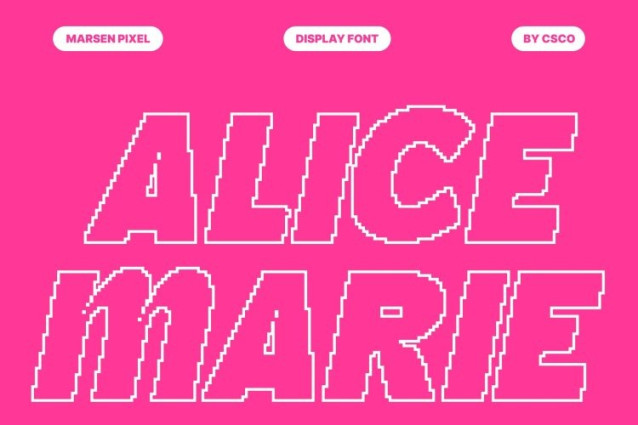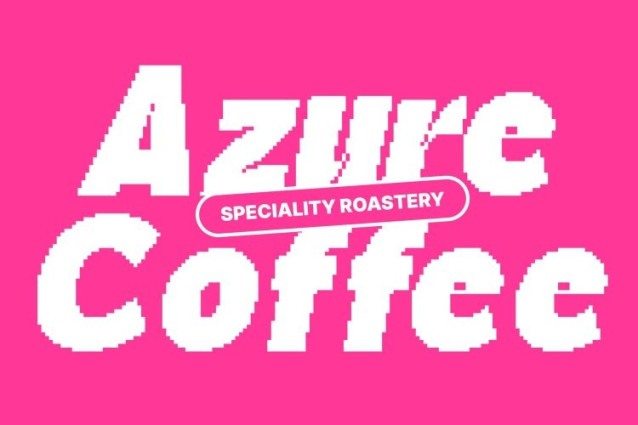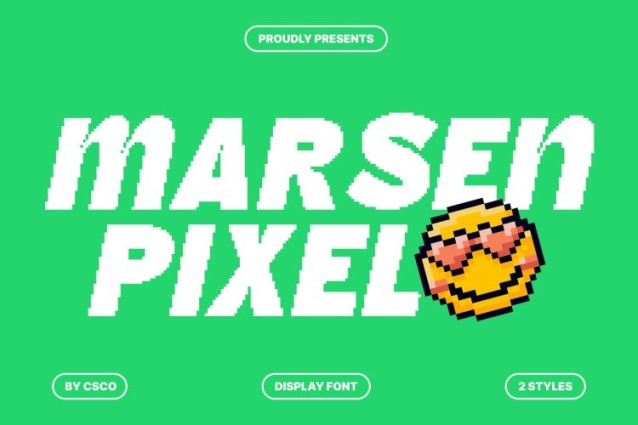
Marsen Pixel Font
Marsen Pixel Font This is a modern sans serif display font designed to combine minimalism with expressive detail. Its clean, structured forms maintain clarity and functionality while the inktrap detailing adds subtle sophistication and boldness. Every letter achieves a perfect balance of simplicity and visual impact, making it ideal for contemporary designs.
Inktrap Detailing for Precision and Style
The carefully crafted inktraps enhance the font’s readability and add a refined aesthetic edge. These small, purposeful cuts not only provide visual interest but also give Marsen Pixel a professional and distinctive personality. The font communicates strength, precision, and design intelligence in every stroke.
Pixel Style for Modern Digital Appeal
Integrated with a pixel-inspired style, this font brings a modern digital touch to classic serif forms. This design element makes it stand out in digital interfaces, editorial layouts, branding, and poster designs. The pixel detailing adds a futuristic, tech-savvy personality without overwhelming the font’s elegant structure.
Perfect for Digital Design, Editorials, Branding, and Posters
This font is versatile and expressive, excelling in projects that require clarity, sophistication, and modern flair. Use it for digital interfaces, editorial layouts, branding materials, or poster designs where a bold, professional, and contemporary serif font is needed. Its combination of inktrap precision and pixel-style innovation ensures your design stands out with confidence and style.